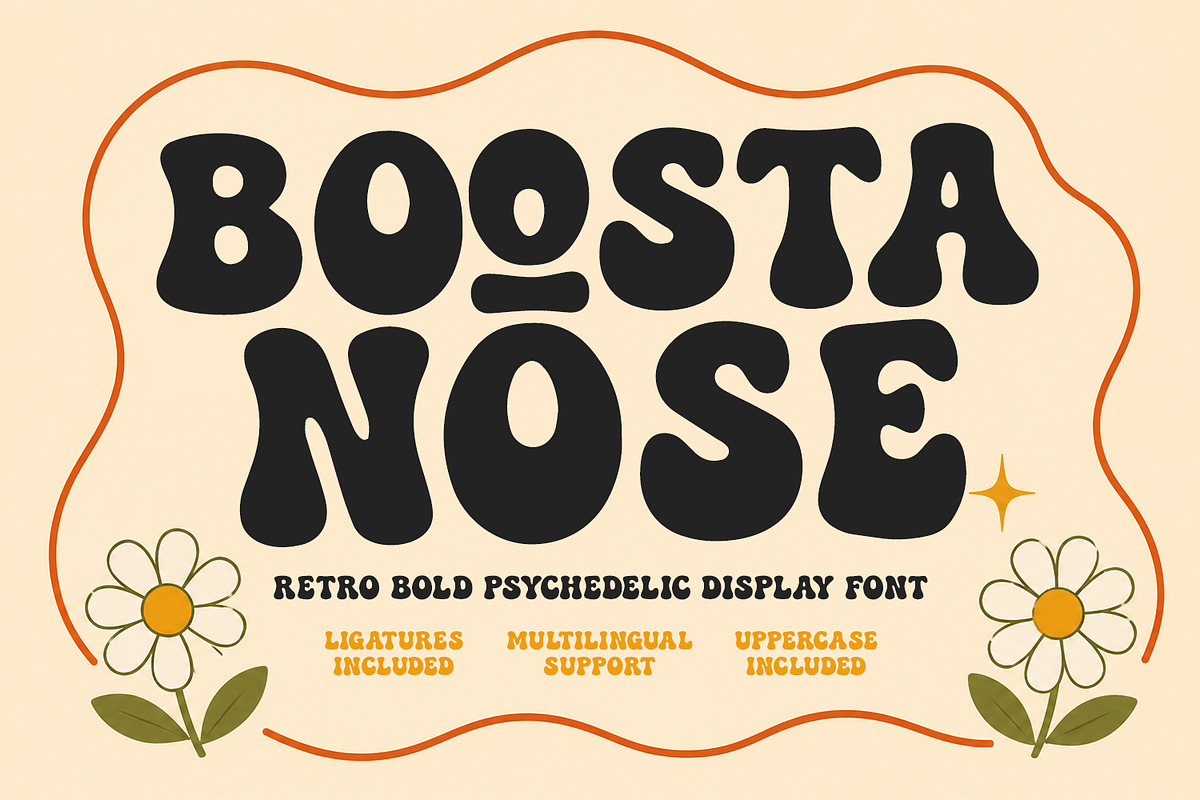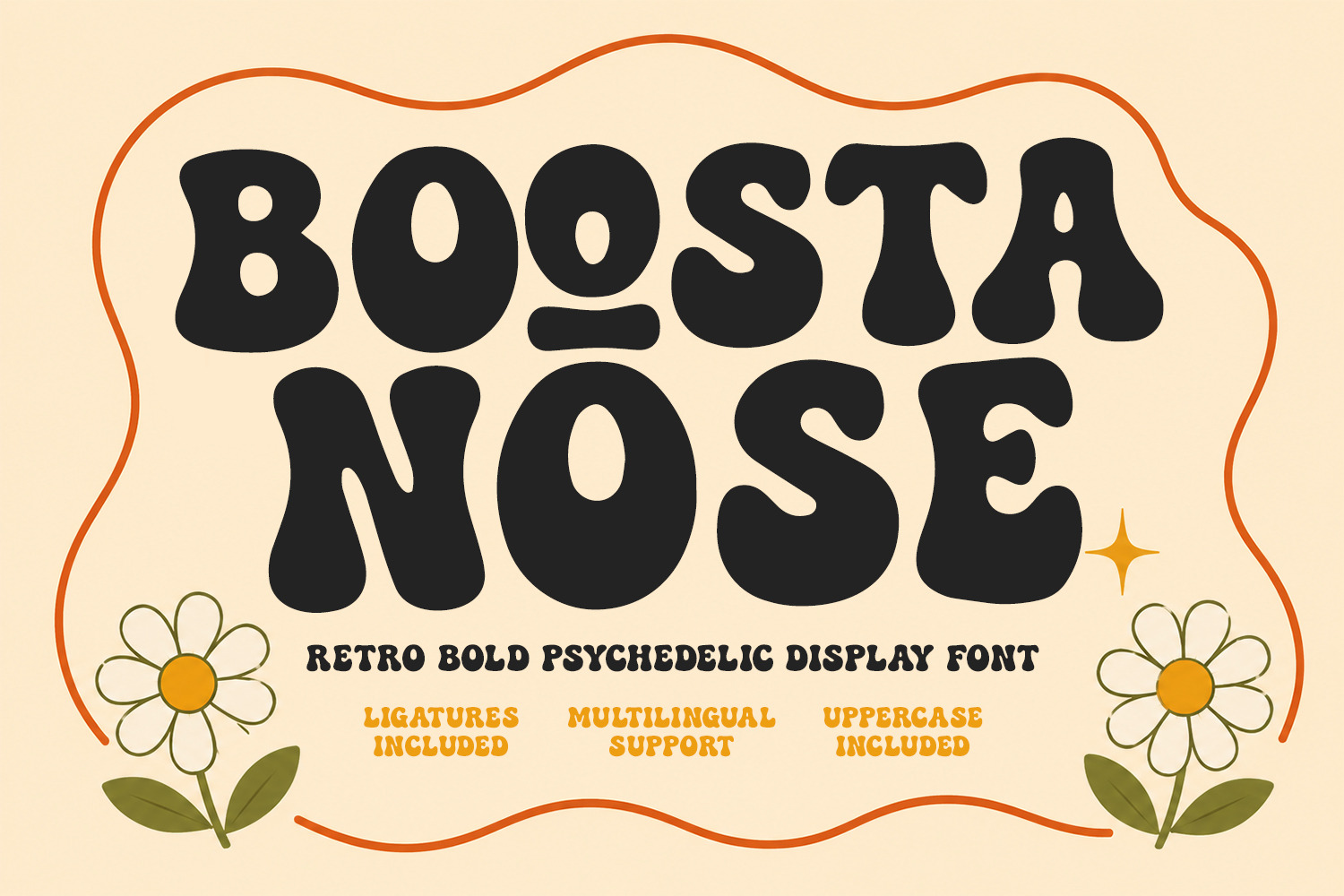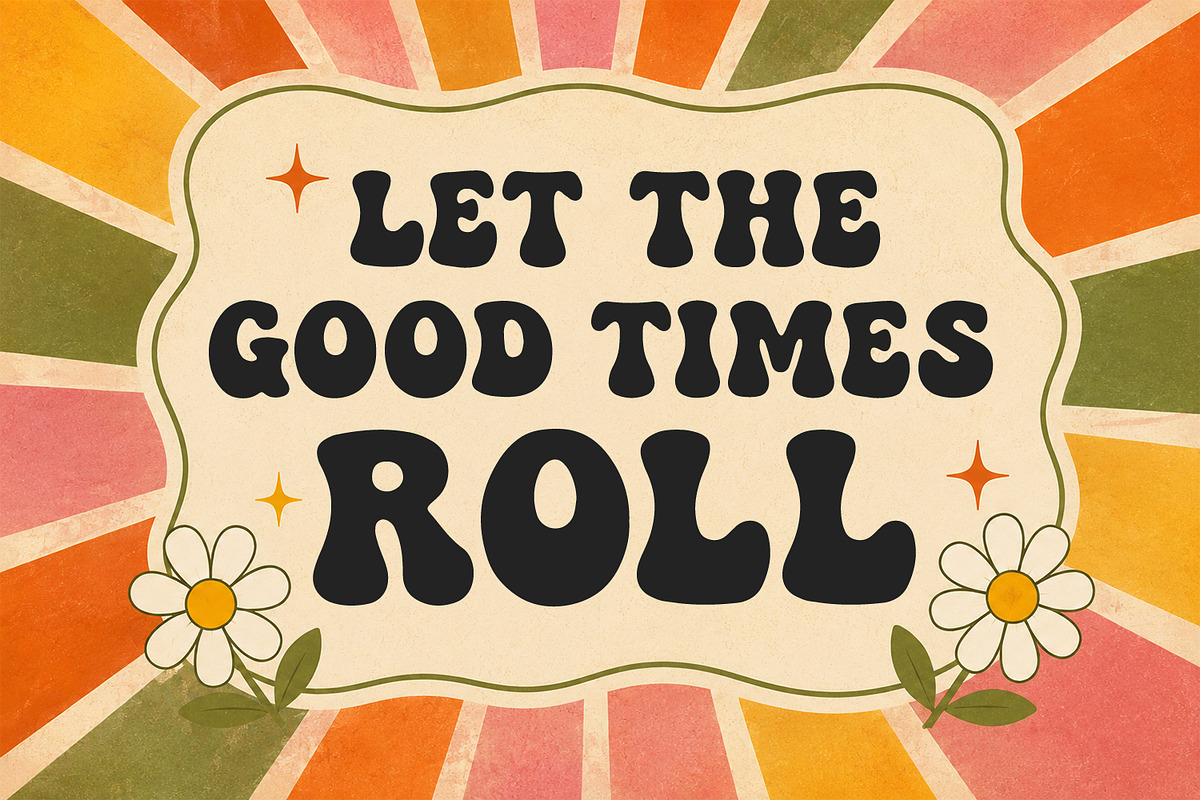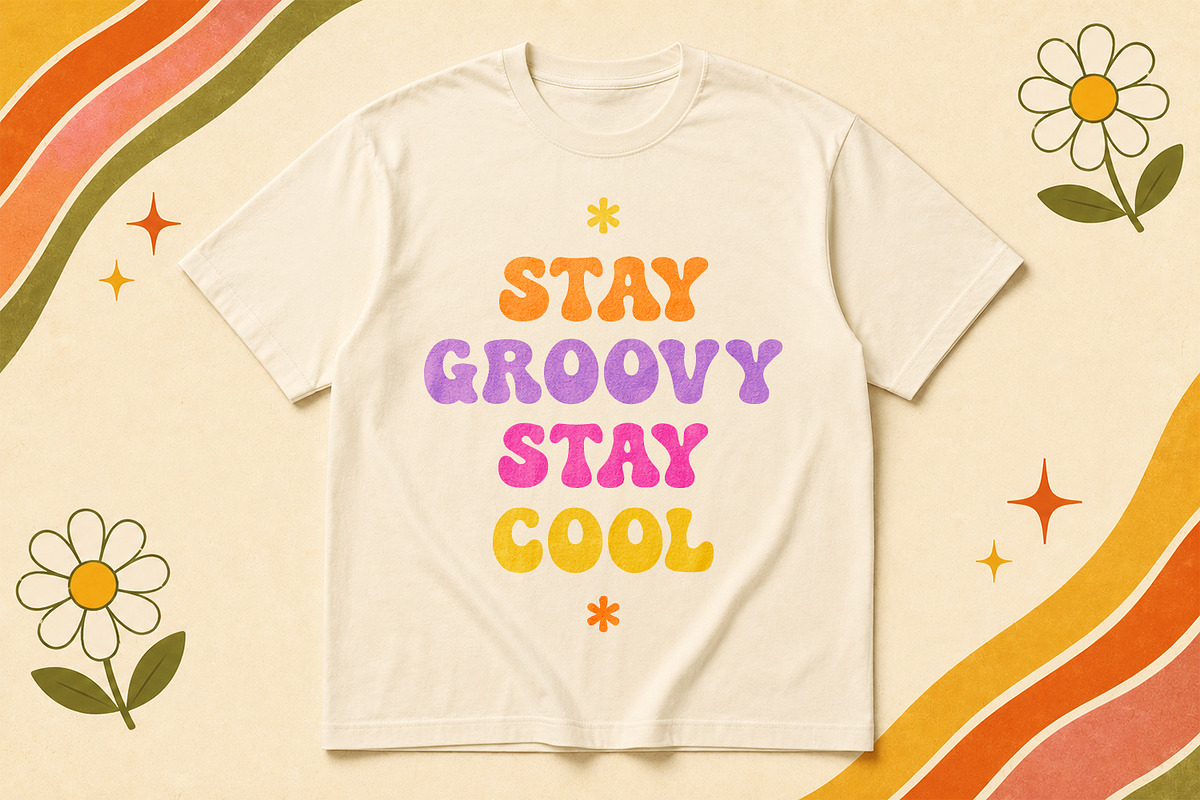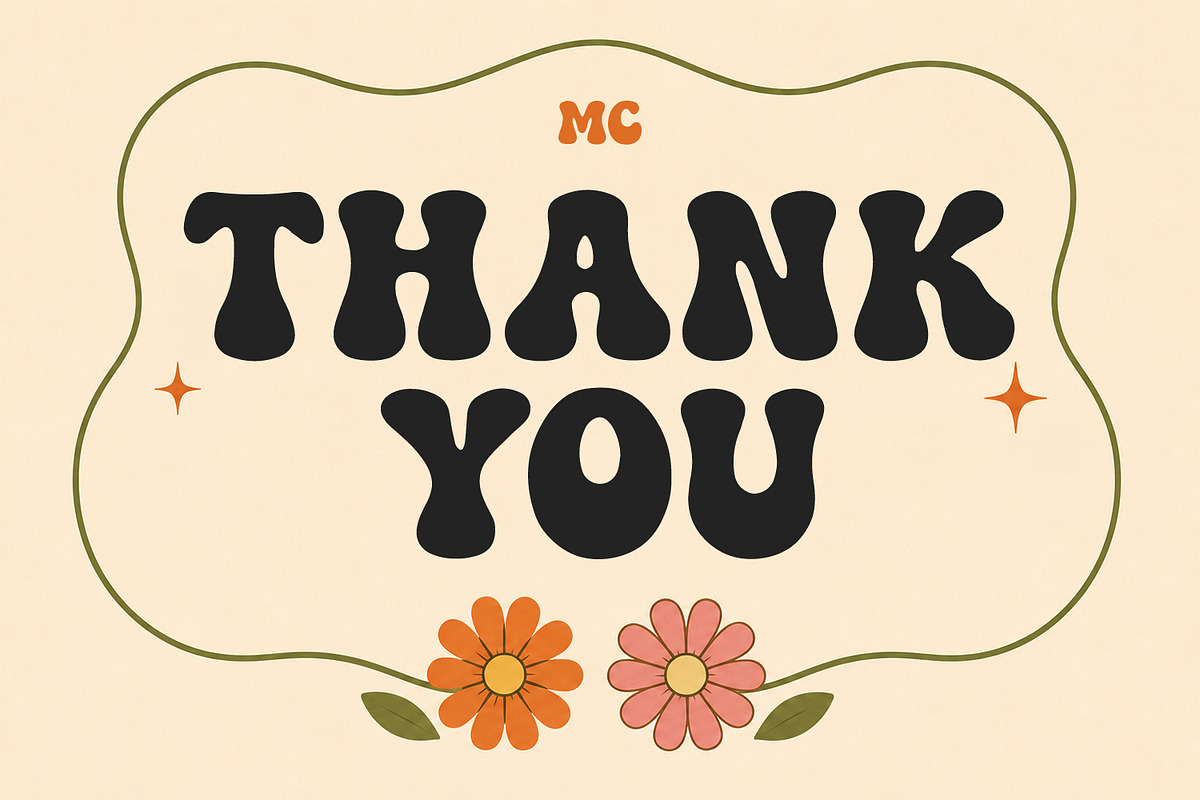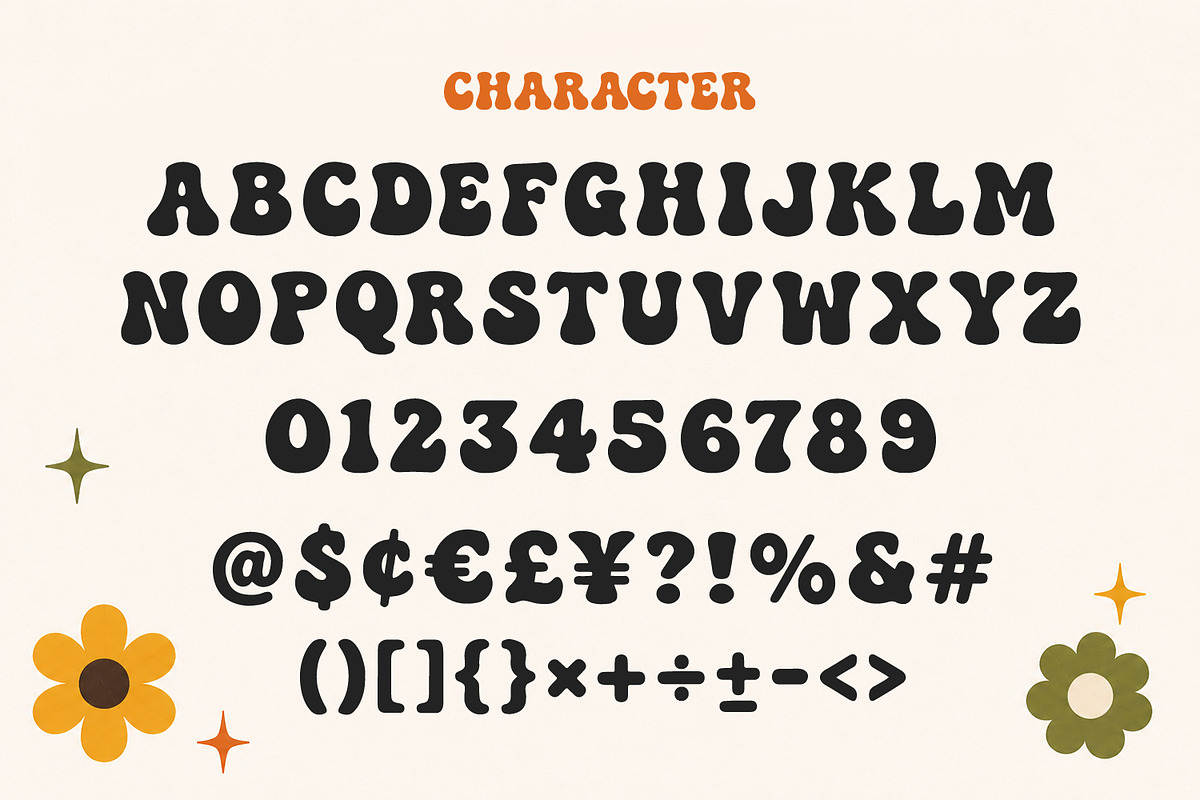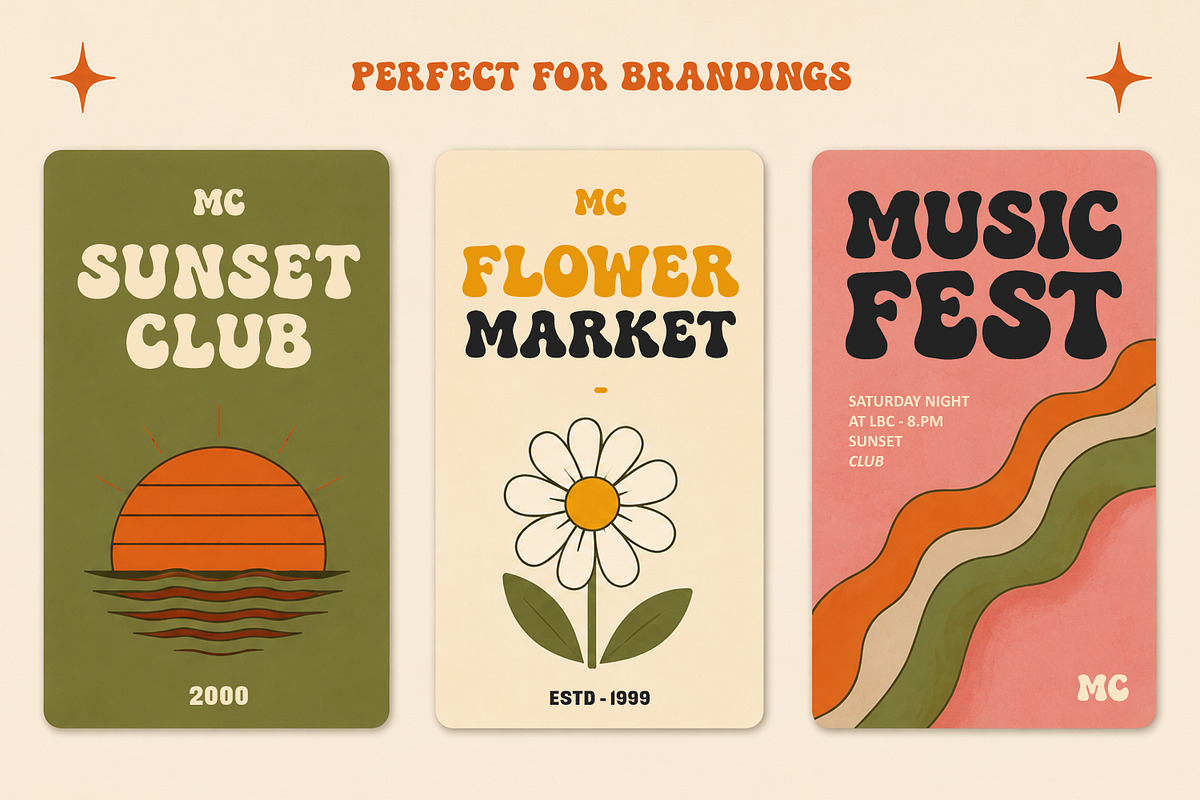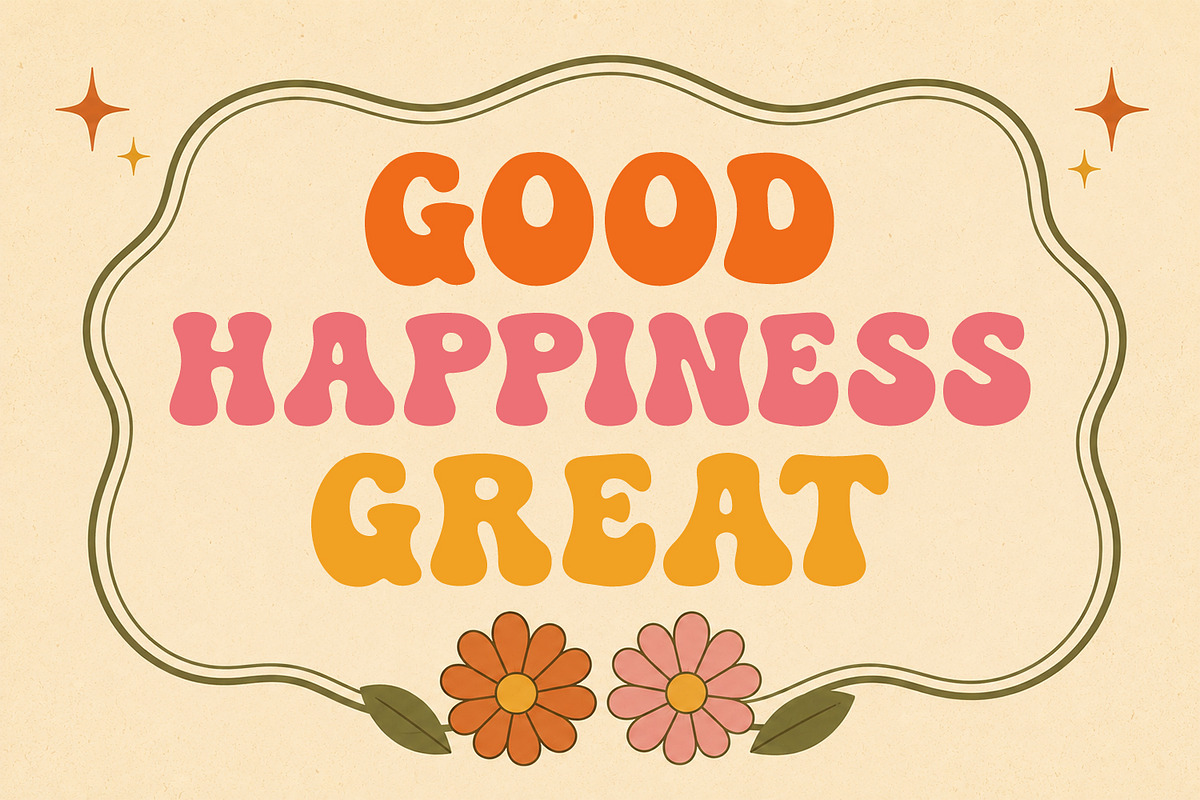
Boosta Nose Retro Psychedelic Font
Boosta Nose is a bold psychedelic display font inspired by classic 1970s typography. Featuring thick, curvy shapes and distinctive wavy letterforms, this typeface brings an authentic vintage vibe to any creative project. Designed with uppercase letters, numbers, punctuation, and multilingual support, it offers unique ligatures that make headlines, titles, and logos stand out instantly.
This retro font excels in creating eye-catching visual identities, promotional graphics, posters, and packaging designs. Its expressive bubble-like aesthetic adds warmth, nostalgia, and a fun groovy character to modern design projects seeking a timeless seventies touch.